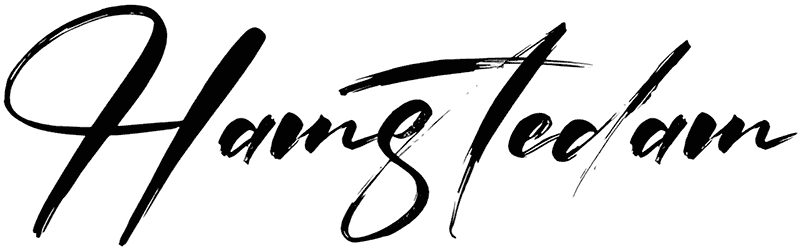
Regratte Font
There’s more than one way to spell regret, of course, that’s only if you don’t mind the typos! It’s like the name is subtly hinting at what happens if you don’t download this brush font now. You don’t want that tho, do you?
So before it gets ugly and you lose Regratte among the rest of its edgy parallels on RB, let’s make sure you have some fun with it at least, in music posters, apparel design, beach party flyers, etc.
Designed by: Liart Type